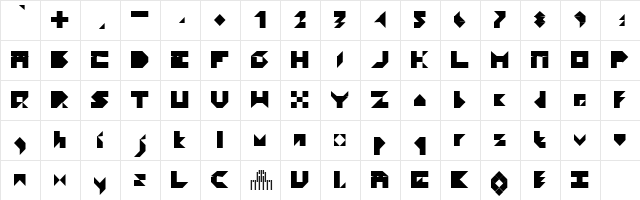
Paper Bold
Design Context for Paper Typeface
Paper is a composed and adaptable typeface that performs quietly and consistently across a wide range of design contexts. Its bold stroke weight gives it real presence on the page.